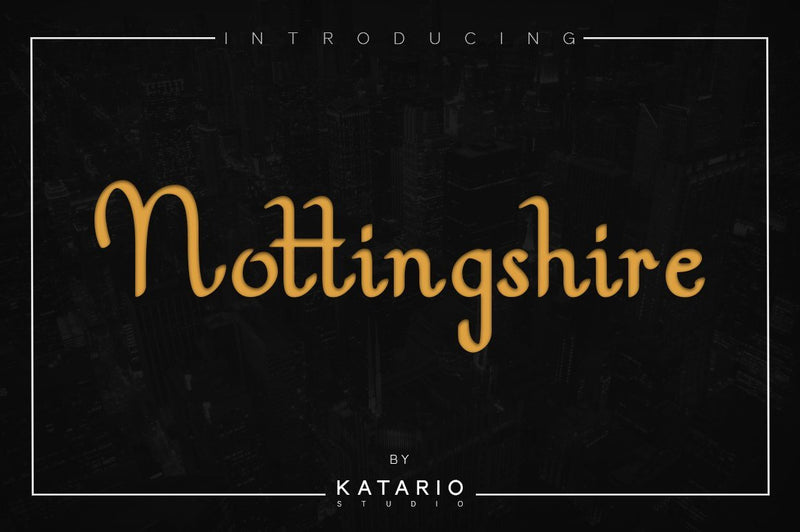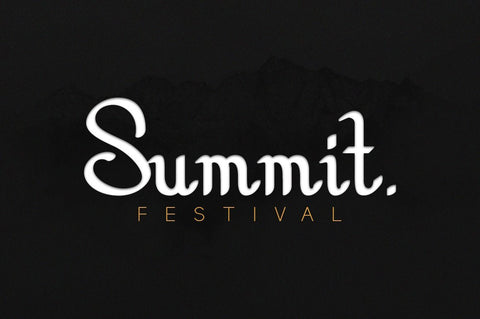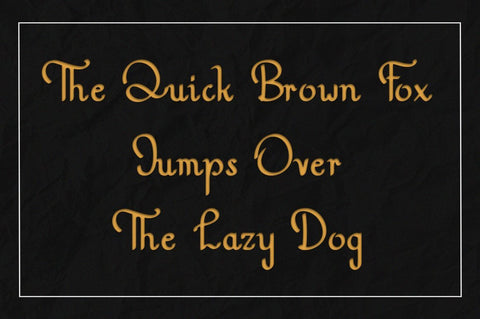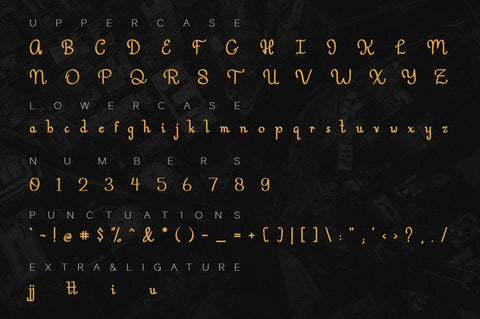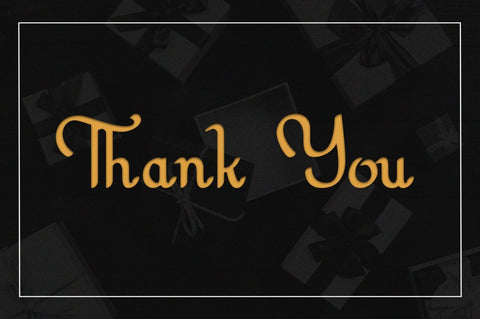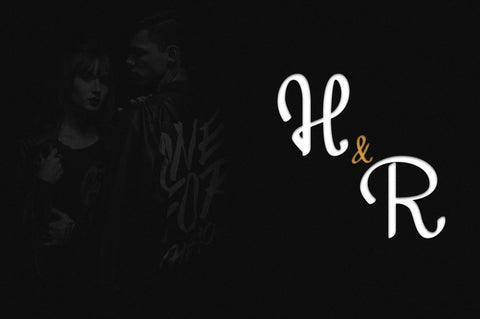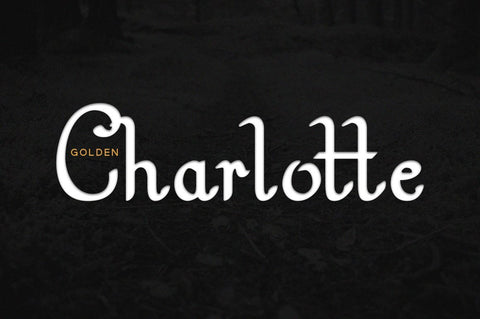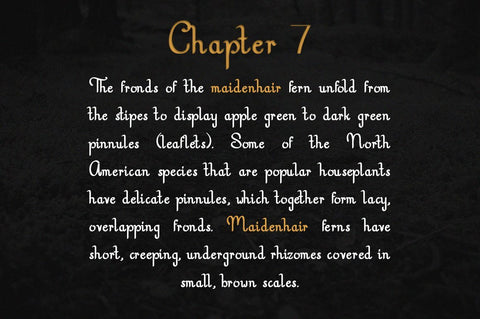
Nottingshire | Modern Serif Font
Nottingshire is a modern serif font with a medieval vibe. This unique font will turn any design project into a stand out!